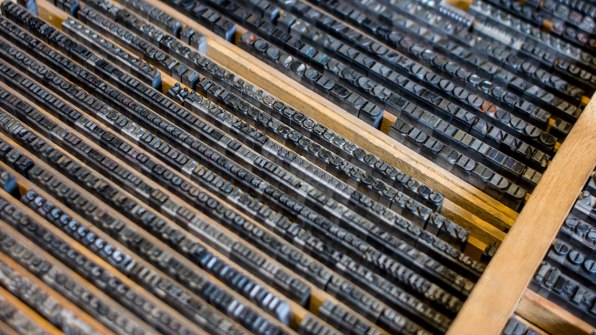
One of the major traps, when talking about type, is mixing up fonts with typefaces or treating them as synonymous. Many a typographic expert has haughtily corrected a beginner for mistakenly using the word font when he or she should have said typeface. To those of us who think about fonts only when choosing one in Microsoft Word, the distinction between the terms can seem confusing, esoteric, and even arcane.
In brief: A font is what you use, a typeface is what you see.
Font vs. Typeface
Back in the good old days of analog printing, every page was laboriously set out in frames with metal letters. That was rolled in ink, and then it was pressed down onto a clean piece of paper. That was a page layout. Printers needed thousands of physical metal blocks, each with the character it was meant to represent set out in relief (the type face). If you wanted to print Garamond, for example, you needed different blocks for every different size (10 point, 12 point, 14 point, and so on) and weight (bold, light, medium).
This is where we get the terms typeface and font. In the example above, Garamond would be the typeface: It described all of the thousands of metal blocks a printer might have on hand and which had been designed with the same basic design principles. But a font was something else entirely. A font described a subset of blocks in that very typeface—but each font embodied a particular size and weight. For example, bolded Garamond in 12 point was considered a different font than normal Garamond in 8 point, and italicized Times New Roman at 24 point would be considered a different font than italicized Times New Roman at 28 point.
The distinction between the two terms, and the processes they encapsulated, got muddied with the rise of desktop publishing. Fonts were no longer thousands of tiny blocks of movable type; they became digital computer files that scaled themselves up or down dynamically to whatever size or weight users wanted. So the distinction between process and end result disappeared in a puff of binary magic for most people.
Open up Microsoft Word and you're asked to choose a font, not a typeface. From the perspective of Microsoft's designers, this makes perfect sense. At any given time, after all, you're working in a specific size and weight of a typeface. This is the proper term. But from the perspective of millions of computer users who have never given a thought to type—outside of deciding what they want to use for their email signature or homemade birthday card—the word font has come to represent the look, not the mechanism.
Does It Even Matter Anymore?
Even among type professionals, there's a growing acceptance that for most people, the terms font and typeface can be used interchangeably. Only experts really need to worry about it.
"For most people in most situations, those terms can swap around without any trouble," Tobias Frere-Jones tells Co.Design. "The distinction would matter in type design, obviously, but also contexts which involve engineering, like app development or web design."
Gary Hustwit, director of Helvetica, agrees. "Most people other than type designers just say 'font,'" Hustwit says. "Among graphic designers, though, I'd say it's a generational thing. A lot of the older designers I've met, like Massimo Vignelli, always say 'typeface.'"
And Pentagram's Eddie Opara puts it even more succinctly: "I think it's the latter, a distinction for experts," he says. "I know it certainly pisses experts off."
In A Nutshell
Even type experts agree: Typeface and font can be used interchangeably at this point. But if you come across an annoying pedant who cares deeply about maintaining the distinction for the masses, just remember this: The difference between a font and a typeface is the same as that between songs and an album. The former makes up the latter. Remember that and you're good to go.